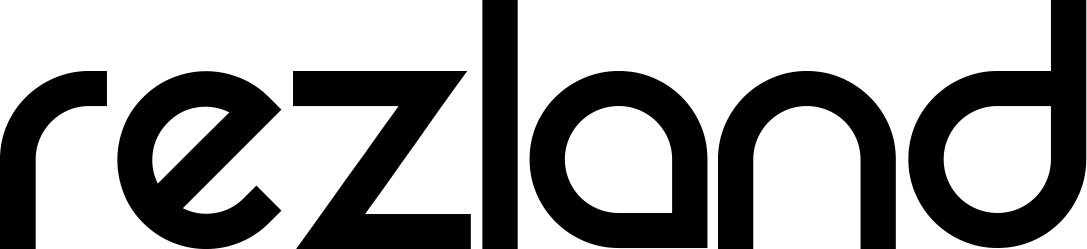
Rezland Font
Rezland font is a fascinating rounded font inspired by circular curved lines. This font does not support uppercase letters and numbers; instead, you can use lowercase letters in sci-fi poster and flyer designs without st…
Rezland font is a fascinating rounded font inspired by circular curved lines. This font does not support uppercase letters and numbers; instead, you can use lowercase letters in sci-fi poster and flyer designs without starting from scratch. This friendly font can also be an excellent choice for business card design and highlight your plan, among other designs.